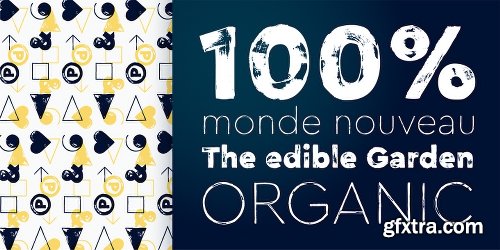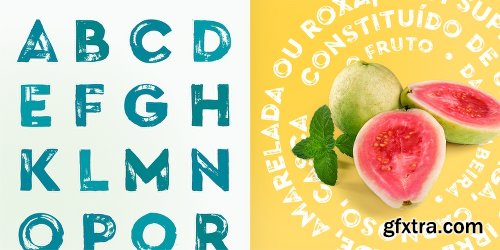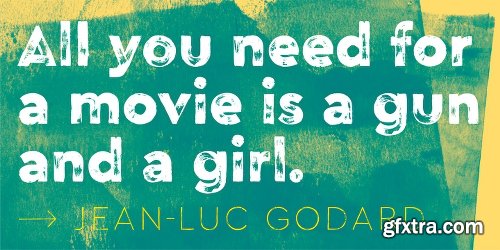
- Cera Brush is the handmade display companion to clean multi-script Cera and Cera Stencil.
- Focused on the extremes, black and thin weights, Cera Brush was carefully drawn by hand in various glyph variants. To keep the analog diversified feeling of custom lettered text, activated opentype feature for ligatures will ensure a thoughtful mix of letters, numbers and interpunction.
- Even though being a display typeface, both weights of Cera Brush include various typographical features like tabular figures or fractions, a wide Latin language support plus useful symbols. Adding contextual alternates, Cera Brush contains more than 1.300 glyphs per weight.
- As high-res details ensure Cera Brush working in huge point sizes quite well, the typeface is predestined for authentic headlines about cooking, organic food and beverage or any other topic that requires a hand-crafted design.